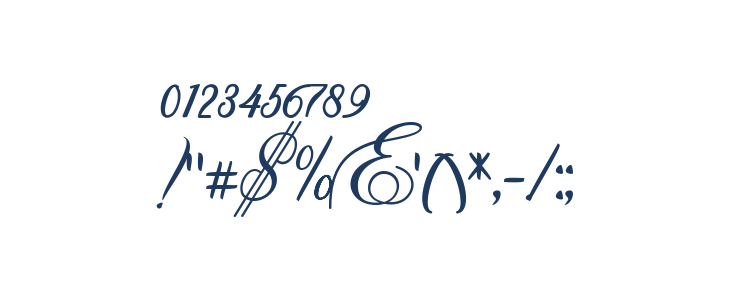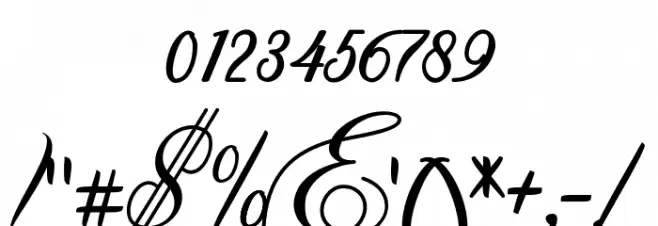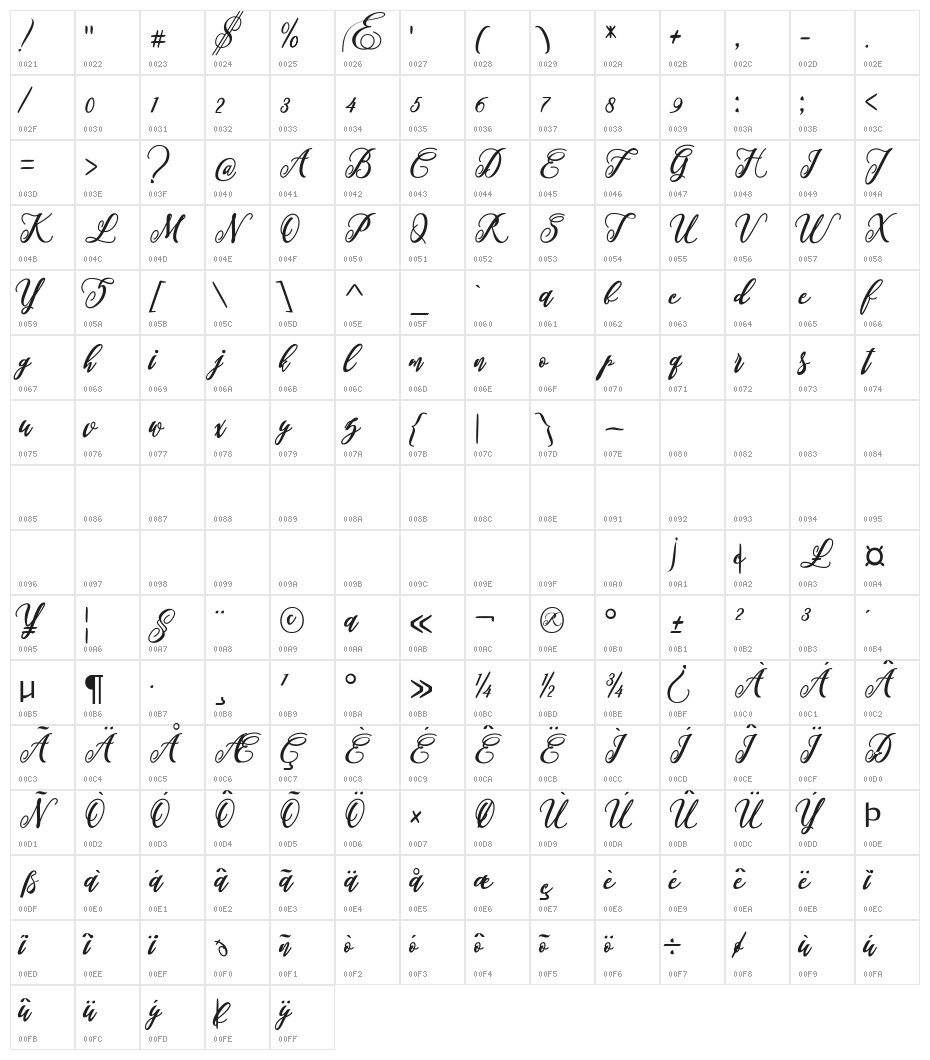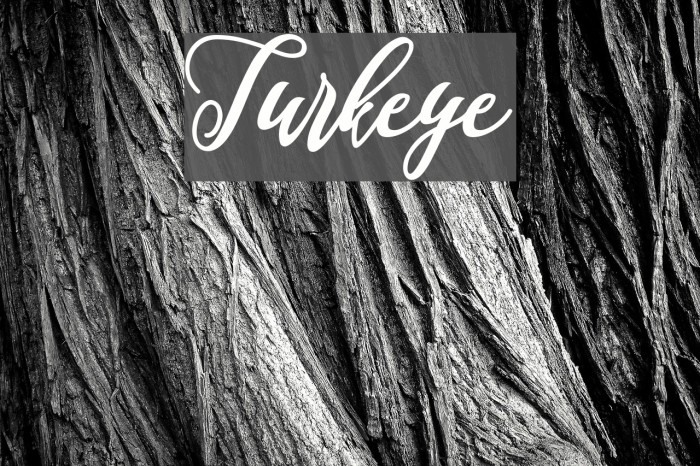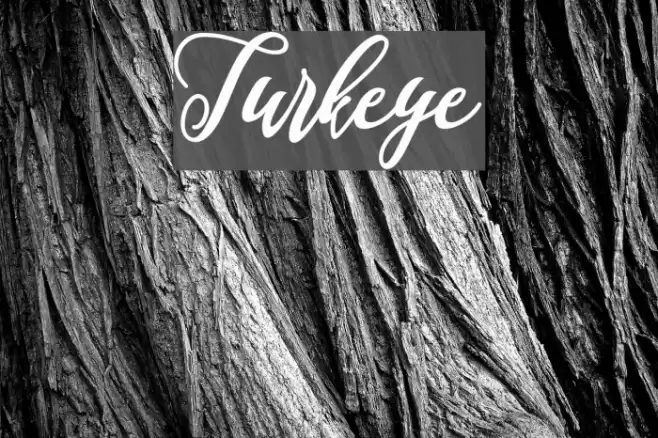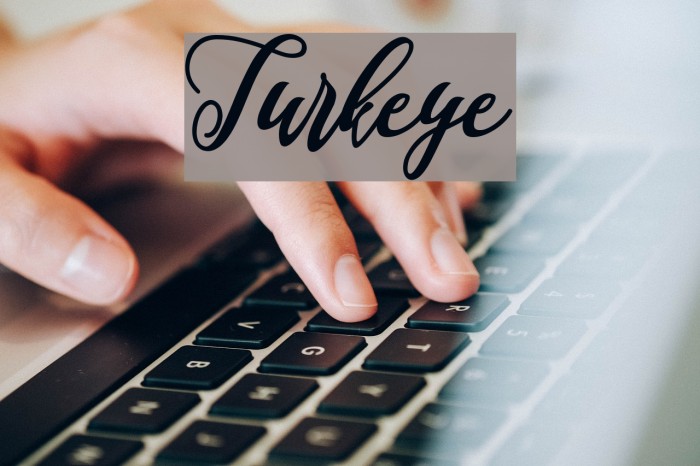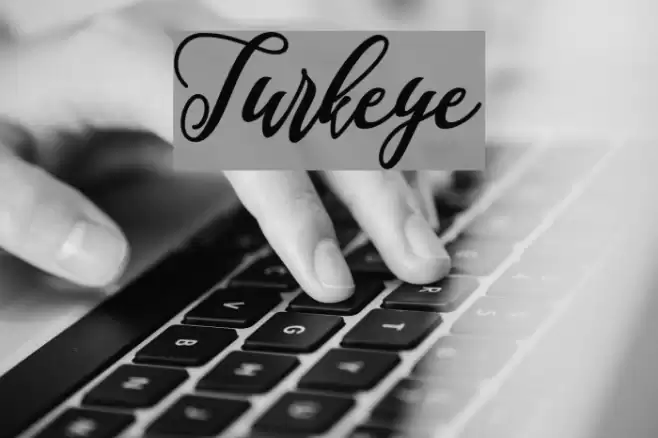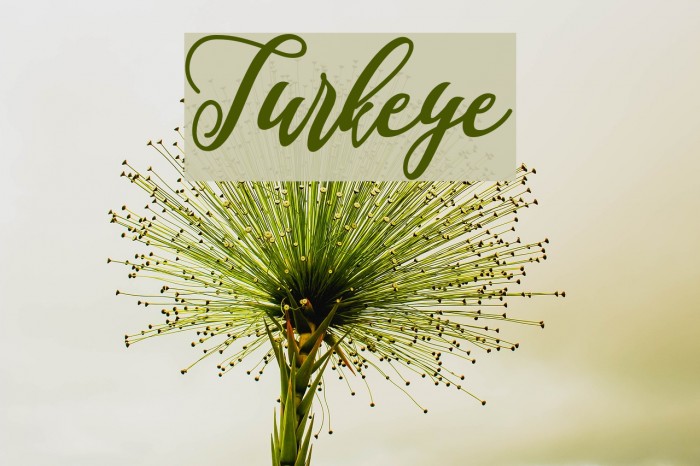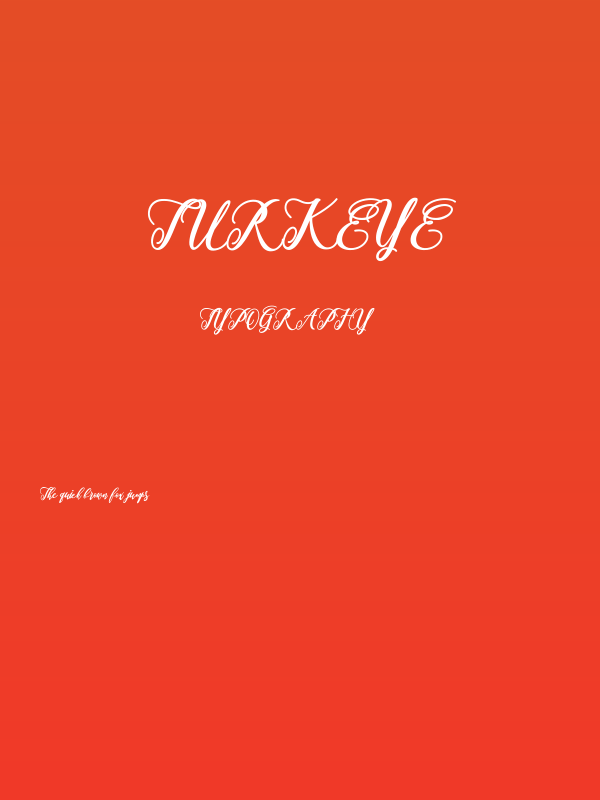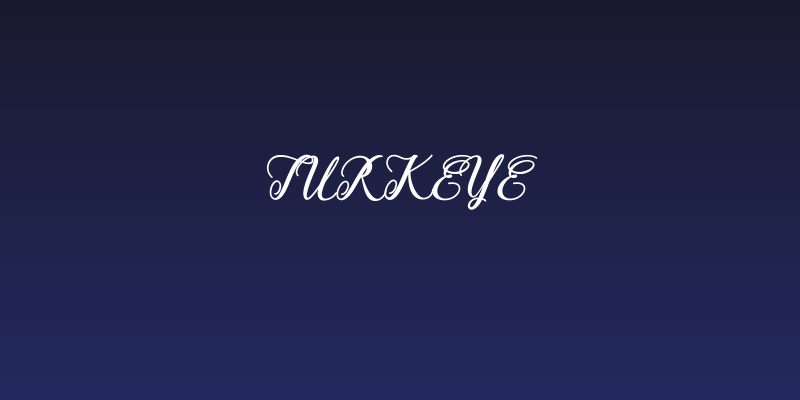
Turkeye Font
Turkeye Description
This font features an elegant script style with flowing, interconnected letters that exude a sense of sophistication and grace. The uppercase letters are adorned with intricate loops and swirls, creating a decorative and ornate appearance. The lowercase letters maintain a consistent flow, enhancing readability while retaining the font's artistic flair. Numbers and special characters are designed to match the overall aesthetic, with similar curves and embellishments. This font is ideal for projects that require a touch of elegance and formality, such as wedding invitations, luxury branding, or high-end product packaging.
| Proposed Projects | Wedding invitations, luxury branding, high-end product packaging, greeting cards. |